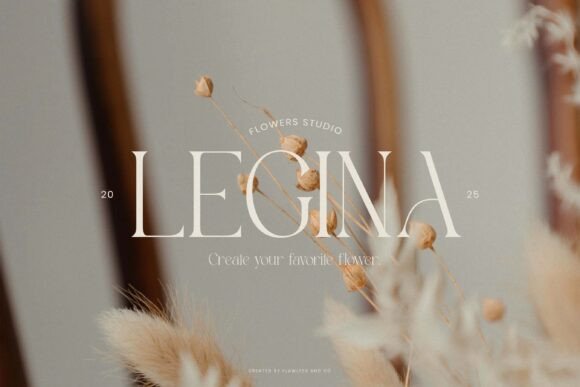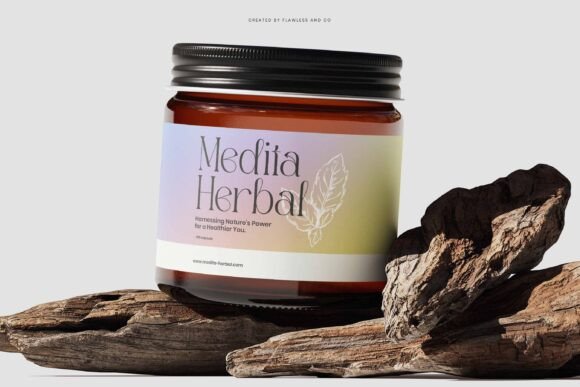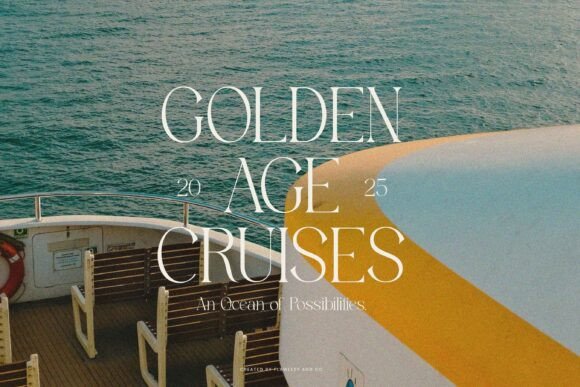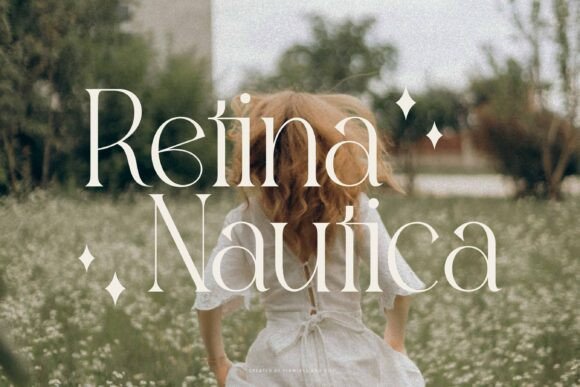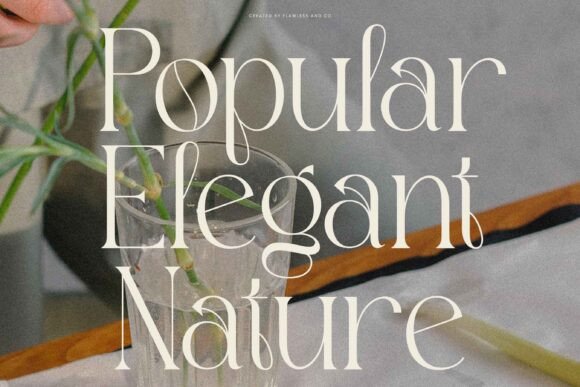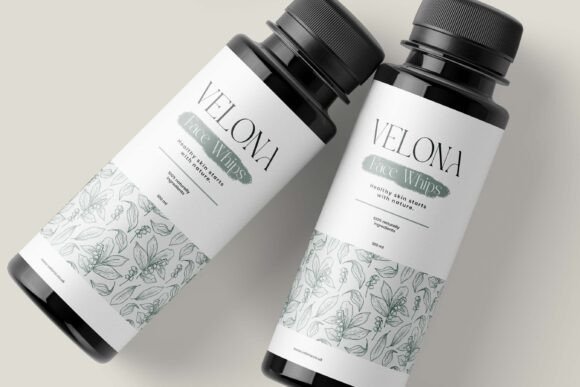
Introducing Agifted: The Epitome of Elegance in Serif Fonts
In the realm of typography, few fonts manage to convey the essence of luxury and sophistication as effectively as Agifted. This classy and elegant serif font has been meticulously crafted to bring a touch of refined charm to any design project. Whether you’re working on high-end branding, editorial layouts, wedding invitations, fashion magazines, or luxury packaging, Agifted is the perfect choice for designers and crafters seeking to elevate their typography with elegance and style.
The Characteristics of Agifted
Agifted’s design is characterized by its graceful curves and timeless letterforms. Each letter has been carefully shaped to exude a sense of sophistication and luxury, making it an ideal choice for projects that demand a high level of elegance. The font’s serif details add a classic touch, while its clean lines ensure that it remains highly legible across various applications.
One of the standout features of Agifted is its versatility. This font can seamlessly integrate into a wide range of design projects, including:
- High-End Branding: Use Agifted to create a lasting impression with your brand’s logo, packaging, and marketing materials. Its luxurious aesthetic helps in establishing a premium brand image.
- Editorial Layouts: Elevate the look of magazines, newspapers, and digital publications with Agifted’s elegant typography. It’s perfect for feature articles, editorials, and any content that requires a sophisticated touch.
- Wedding Invitations: Make your wedding invitations or event announcements stand out with Agifted. Its classy appearance adds a touch of elegance and romance to any celebration.
- Fashion Magazines: For fashion designers and editors, Agifted offers the perfect typography solution. It complements fashion content with its stylish and sophisticated look, enhancing the overall aesthetic of the publication.
- Luxury Packaging: For brands that offer high-end products, Agifted can be used on product labels, packaging, and promotional materials to convey luxury and exclusivity.
Why Choose Agifted?
There are several reasons why Agifted stands out as a go-to font for designers and crafters:
- Sophisticated Aesthetic: Agifted brings a level of sophistication that is hard to match. Its elegant design ensures that your projects look premium and high-end.
- Timeless Appeal: Unlike trends that fade over time, Agifted’s classic design ensures that your work remains relevant and stylish for years to come.
- Legibility: Despite its intricate details, Agifted maintains high legibility, making it suitable for both headings and body text.
- Customization: Agifted can be easily customized to fit your project’s needs. Whether you need to adjust the font size, color, or integrate it with other design elements, Agifted offers flexibility without compromising on style.
Agifted is more than just a font; it’s a design statement. Its elegant and sophisticated charm can transform any project into a masterpiece of typography. For designers and crafters looking to infuse their work with luxury and style, Agifted is an indispensable tool. By choosing Agifted, you’re not just selecting a font; you’re elevating your design to new heights of elegance and sophistication.
With Agifted, the possibilities are endless. Embrace the elegance, and let Agifted be the touchstone for sophistication in your typography endeavors.